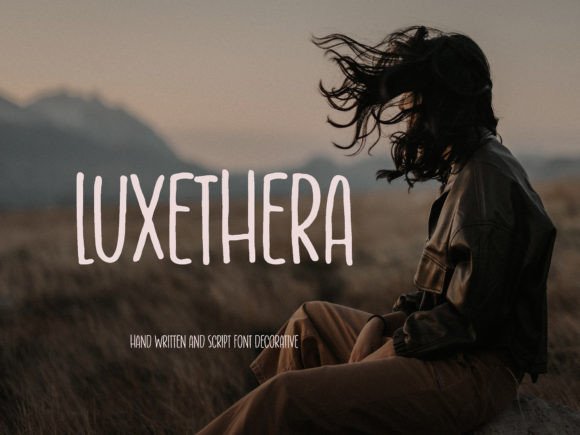
Unleash an Enchanting Typographic Journey with Luxethera Font: Your Gateway to Design Elegance!
In the realm of digital artistry, fonts play a symphony of visual expressions, captivating the eyes and speaking volumes to the soul. Among this symphony, the Luxethera Font stands as a lyrical masterpiece, a script and handwritten font crafted to inspire awe and elegance in your creative endeavors.
Luxethera: A symphony of visual expressions that captivates the eyes and speaks volumes to the soul.
Indulge in a world of flowing strokes and graceful letterforms, where every character dances with a rhythmic fluidity that is both mesmerizing and elegant. Let your designs bloom with a touch of sophistication as the Luxethera Font weaves its magic, transforming your words into works of heartfelt expression.
With Luxethera, you hold the key to unlocking a treasure trove of creative possibilities. Whether you're a seasoned designer or a budding wordsmith, this font will become your trusty companion, ready to add a touch of magic to your logos, magazines, social media posts, brochures, and more.
Immerse yourself in the boundless versatility of the Luxethera Font. Its inherent charm and adaptability make it the perfect choice for a myriad of projects, from heartfelt invitations to eye-catching posters, from captivating social media posts to enchanting branding designs.
Step into the world of heartfelt typography and let Luxethera be your guide. Experience the joy of crafting designs that whisper with elegance and speak with grace. Let your creativity soar as you witness the transformative power of Luxethera, turning ordinary words into extraordinary expressions.